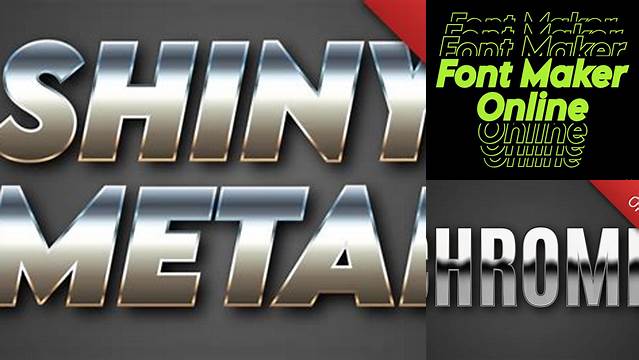
Free Metal Font Maker Online: Stunning Text Designs
Are you looking to add a touch of boldness, elegance, or edginess to your designs? Want to create text that pops, grabbing the attention of your audience? Well, you're in luck, because we're diving deep into the world of metal font makers online free! These fantastic tools let you transform regular text into eye-catching metal-effect masterpieces, and the best part is, they won't cost you a dime. So, let's get started and explore how these free online resources can revolutionize your creative projects.
What is a Metal Font Maker?
A metal font maker is essentially a digital tool that allows you to apply metal-like effects to your text. Think of it as giving your words a metallic makeover. You can choose from a variety of styles, from shiny chrome and brushed steel to rustic bronze and tarnished copper. These tools are incredibly versatile, catering to a wide range of design needs. Whether you're creating a logo, a social media graphic, a website header, or even a cool poster, a metal font can instantly elevate your visual communication.
Why use a metal font maker?
The appeal is simple: metal fonts are visually striking. They command attention and can convey a sense of premium quality, strength, and sophistication. They are perfect for businesses or individuals looking to make a strong first impression. Using a metal font maker allows you to create unique and memorable designs that stand out from the crowd. Unlike static images, the flexibility of online tools allows for quick customization to fit your specific needs. These font makers also provide a way to quickly test different font styles and effects, saving you time and effort in the long run. Plus, the cost-free aspect makes it an accessible option for everyone, from amateur designers to seasoned professionals looking for a quick and easy solution.
Key features of a metal font maker
When you're on the hunt for a metal font maker, here are a few features you should look out for. Firstly, the variety of metal styles offered is key. You want options! Chrome, gold, silver, bronze, and even more unique effects like brushed metal or textured surfaces should be available. Secondly, customization options are crucial. Being able to adjust the color, shine, texture, and even the background is a major advantage. Thirdly, the user interface should be intuitive and easy to navigate. You don't want to spend hours figuring out how to use a tool. A good metal font maker should be user-friendly, allowing you to create your desired effects quickly. Finally, make sure the tool allows you to download your creations in a usable format, such as PNG or JPG, so you can use them in your projects. Many free tools also offer the ability to change the font style and size, giving you even more creative control.
Top Free Metal Font Makers Online
Okay, guys, let's get to the good stuff! Here are some of the best metal font makers online free that you can start using today. These tools offer a variety of styles, customization options, and user-friendly interfaces, making them perfect for both beginners and experienced designers. Remember, experimenting with different options is key to finding the perfect metal font for your project.
1. CoolText
CoolText is a classic, and for good reason. This online generator offers a wide range of text styles, including several impressive metal effects. It's super easy to use; you simply select a style, enter your text, and customize the settings. CoolText lets you adjust the font, size, color, and even add effects like shadows and glows. The interface is clean and straightforward, making it a great option for anyone new to graphic design. Plus, the download process is quick and painless. You can export your creations as PNG or JPG files, ready for use in your designs. It's a reliable and free resource that consistently delivers great results. Another benefit is that it also supports a variety of different languages and special characters.
2. FlamingText
Similar to CoolText, FlamingText is another online generator that specializes in creating various text effects, including some excellent metal font options. The site has a vast library of styles, many of which feature a metallic appearance. You can customize the font, size, color, and add various effects, such as outlines, backgrounds, and glows. FlamingText's interface is intuitive, and it provides a live preview of your text as you make changes. The download options are also versatile, giving you several format choices to fit your needs. Plus, the website also offers different animation options for your text, making it a fun tool for creating engaging graphics.
3. TextFX.co
TextFX.co is a powerful online tool that allows you to create stunning text effects quickly. It features a variety of metal-inspired styles, including gold, silver, and chrome. The customization options are extensive; you can control everything from the font and size to the bevel, shadow, and background. The interface is user-friendly, allowing you to see your changes in real time. TextFX.co also provides a high-quality preview, ensuring your final result looks amazing. It's a great choice if you are looking for advanced customization. And also, it's completely free!
4. 3DTextMaker.com
If you're looking for a more three-dimensional look, 3DTextMaker.com is worth checking out. While it isn't exclusively for metal fonts, it provides excellent options for creating text with a metallic appearance. The tool lets you customize the depth, bevel, and material of your text, giving it a realistic 3D effect. This is perfect for logos, headings, and other design elements where you want a strong visual impact. The interface is straightforward, and you can easily adjust the settings to get the look you want. Even better, you can download your creation in multiple formats to fit your project.
Tips for Using Metal Fonts Effectively
Now that you know about some awesome metal font makers online free, let's talk about how to use them effectively. The right use of metal fonts can make a huge difference in your designs.
Choose the Right Metal Style
Not all metal styles are created equal. The best choice will depend on your project and your message. Chrome is a classic choice, conveying a sense of modern elegance. Gold adds a touch of luxury and sophistication. Bronze can give your design a vintage or rustic feel. Silver is a versatile option that works well in many different contexts. Consider the overall theme and feel of your project when selecting your metal style.
Consider Readability
While metal fonts are visually striking, it's important to prioritize readability. Some metal effects, especially those with complex textures or excessive shine, can be hard to read. Make sure your text is easy to understand, even when viewed from a distance or on a small screen. Choose a font that is clear and well-defined, and adjust the effects so they complement the text rather than obscuring it.
Balance with Other Design Elements
Metal fonts often work best when used in moderation. Don't overload your design with metal effects, as it can look overwhelming. Instead, use metal fonts to highlight key elements, such as headings or logos. Balance the metallic text with other design elements, like solid colors, clean backgrounds, and simple graphics. This will help create a cohesive and visually appealing design. The idea is to create harmony, not to overpower the design with a single effect.
Experiment and Iterate
The best way to master the art of using metal fonts is to experiment. Try out different styles, effects, and combinations. See what works best for your project. Don't be afraid to make mistakes, and learn from them. Use the online font makers' preview features to see how your text will look before downloading. You can quickly change your options and experiment until you get the perfect result. This iterative process is a key part of the design process.
Beyond the Basics: Advanced Techniques
Once you've mastered the basics of metal font makers online free, you can explore some more advanced techniques to take your designs to the next level.
Combining Fonts and Effects
Don't be afraid to mix and match different font styles and effects. Combine a metal font with a simple sans-serif font for a modern look, or pair a metal font with a vintage-style serif font for a retro feel. Experiment with different effects, such as shadows, glows, and outlines, to create unique and eye-catching results. Remember, blending elements can make your designs stand out. The possibilities are endless if you are open to trying different combinations.
Adding Textures and Backgrounds
Enhance the visual appeal of your metal fonts by incorporating textures and backgrounds. Add a textured background, like brushed metal or a subtle gradient, to give your design depth and realism. Experiment with overlays and patterns to create unique effects. These additions can dramatically enhance the look of your text. This also adds an extra layer of personality to your designs.
Using Metal Fonts in Logos and Branding
Metal fonts can be particularly effective in logos and branding materials. They convey a sense of professionalism, quality, and sophistication. When using a metal font in a logo, make sure it complements your brand's overall aesthetic. Consider the colors, style, and target audience. A well-designed metal font logo can make a lasting impression, helping your brand stand out from the competition. It's also important to ensure the logo is versatile and can be used across different platforms.
Optimizing for Different Platforms
When using metal fonts in your designs, make sure they look good on all platforms, from social media to print materials. Test your designs on different devices and screen sizes. Ensure the text is legible and that the effects are not too overpowering. Optimize your images for the specific platform you are using. This will help ensure that your designs look professional and polished, regardless of where they are viewed. It also helps your design to reach a wider audience.
Conclusion: Unleash Your Creativity with Free Metal Font Makers
So there you have it, guys! You now have a solid understanding of metal font makers online free and how to use them to create stunning designs. These tools are fantastic for adding visual flair, making your text stand out, and expressing your creativity. Remember to experiment, try different styles, and consider the overall message you want to convey. With the right tools and a bit of creativity, you can transform any text into a metallic masterpiece. Embrace the power of these tools and start creating today!